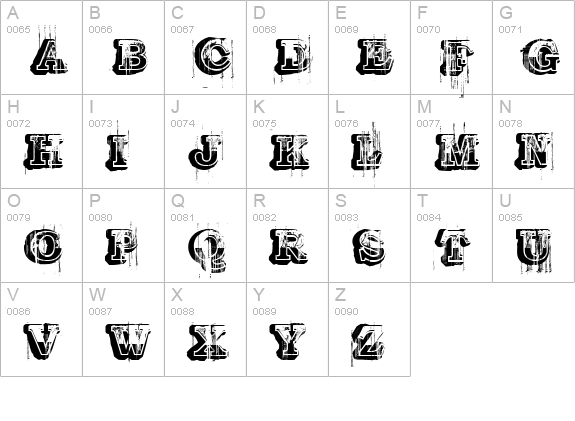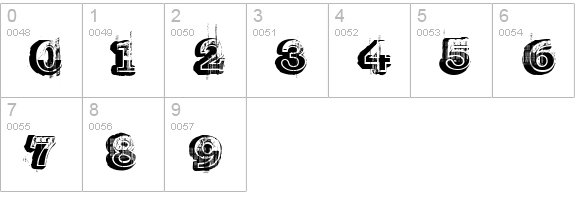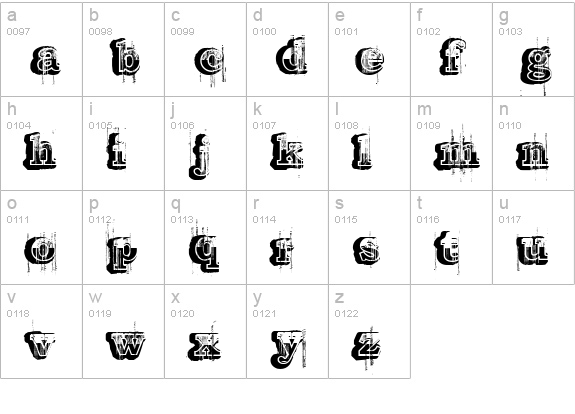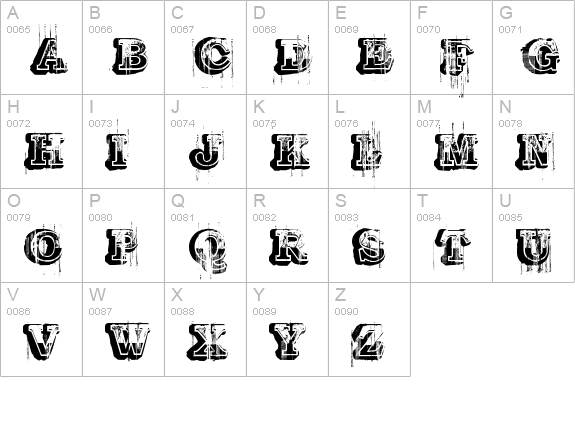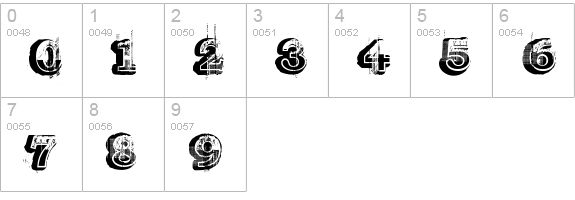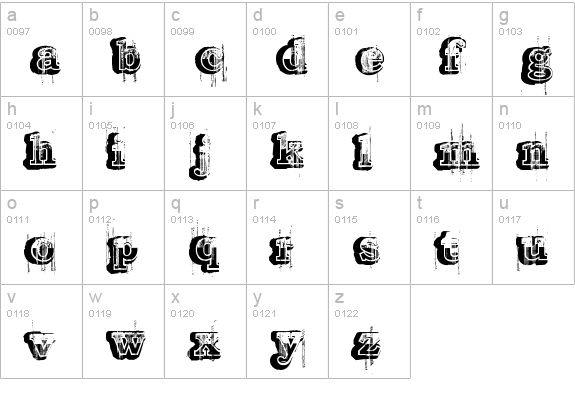
Introducing the Barber Shop font, a stylish and versatile typeface that captures the essence of classic barbershop aesthetics. This retro-inspired font features bold lines and sharp edges, perfect for creating eye-catching signage, branding, and promotional materials. With its sleek and timeless design, the Barber Shop font adds a touch of vintage charm to any project. Best of all, the Barber Shop font is completely free to download at FontsMarket.com. Whether you're a seasoned designer or just starting out, this font is a must-have addition to your collection. Don't miss out on the opportunity to enhance your designs with this unique and classic typeface. Download the Barber Shop font today and start creating stunning visuals that stand out from the crowd.